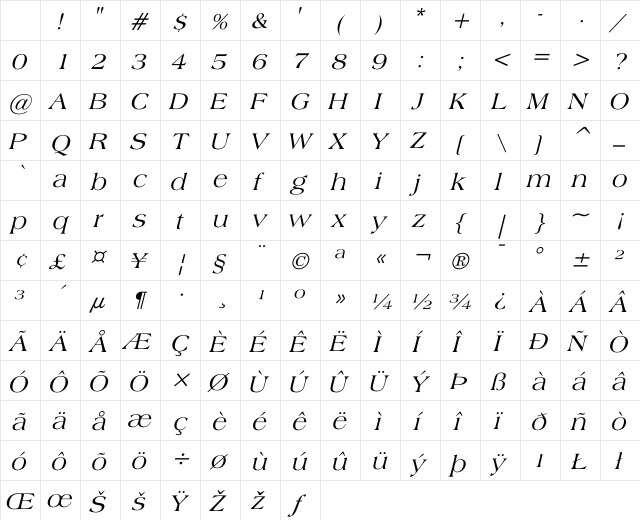
Broadsheet LDO is a composed and adaptable typeface that performs quietly and consistently across a wide range of design contexts. The slanted form adds forward momentum and visual energy.
Pro Tip: Use Broadsheet LDO for emphasis, pull quotes, and subheadings where its slanted energy can add rhythm to the layout.